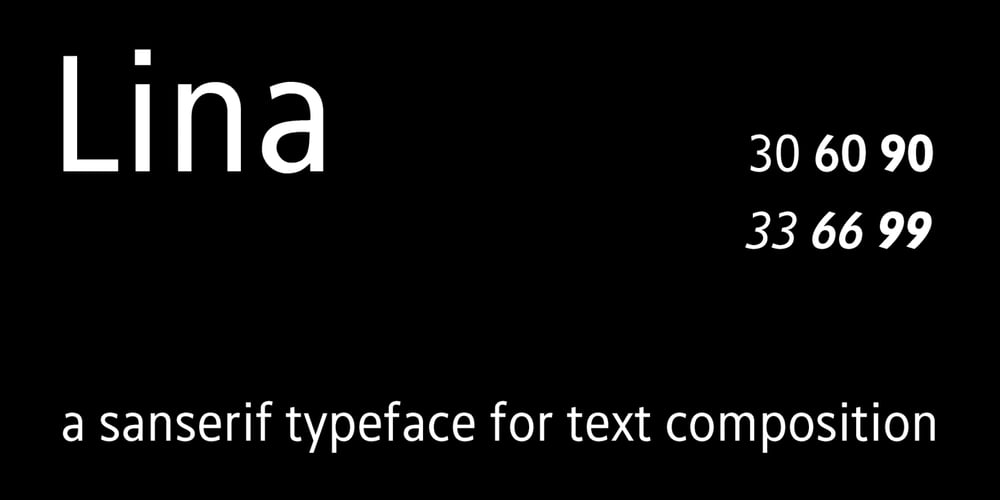
Lina Font Family was designed by Roy Cole and published by Roy Cole. Lina contains 6 styles and family package options. The Lina typeface family was designed by Roy Cole and completed in 2003. The roman font, Lina 30, was drawn originally by hand and later its character set extended and digitally redrawn with the aid of Fontographer. The five additional fonts, 60, 90, and the italics 33, 66, 99 followed and were all produced digitally from scratch. Lina is characterized by economy, lightness and evenness of weight. The capitals and figures are not as tall as the lower-case but retain the latter’s weight, and the figures are designed to provide enhanced recognition. The characters are relatively large on the body and text and benefit from additional leading. Lina is essentially a typeface for text composition. Roy Cole’s other typeface families are Zeta, Colophon and Coleface.